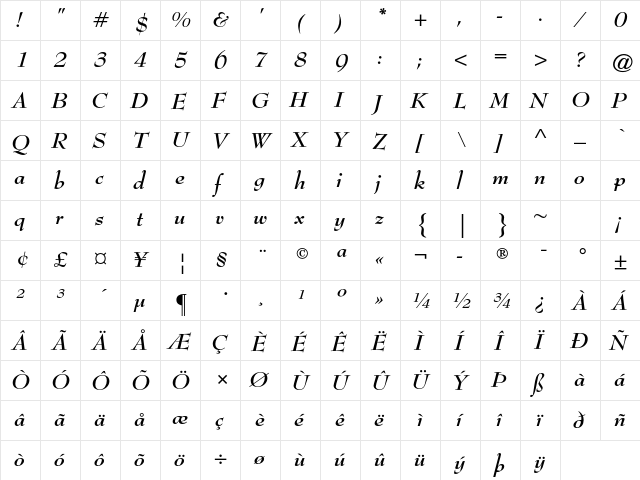
Bernhard Modern Std Bold Italic
| Designer | Lucian Bernhard |
Design Context for Bernhard Modern Std Typeface
Bernhard Modern Std offers clean, dependable letterforms without strong stylistic allegiance, making it a practical choice for designers who need flexibility. The dynamic lean of this cut emphasises speed and emphasis in any layout. Its bold stroke weight gives it real presence on the page.
Pro Tip: Use Bernhard Modern Std for emphasis, pull quotes, and subheadings where its slanted energy can add rhythm to the layout.